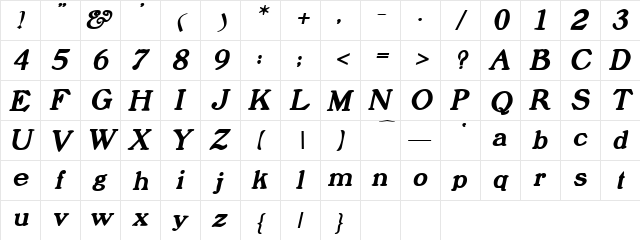
Prophet BoldItalic
Design Context for Prophet Typeface
Prophet is a composed and adaptable typeface that performs quietly and consistently across a wide range of design contexts. The slanted form adds forward momentum and visual energy. The heavy weight commands attention and anchors typographic hierarchies.
Pro Tip: Try Prophet for annotation and caption copy alongside an upright companion — the contrast in angle creates a dynamic but ordered typographic system.